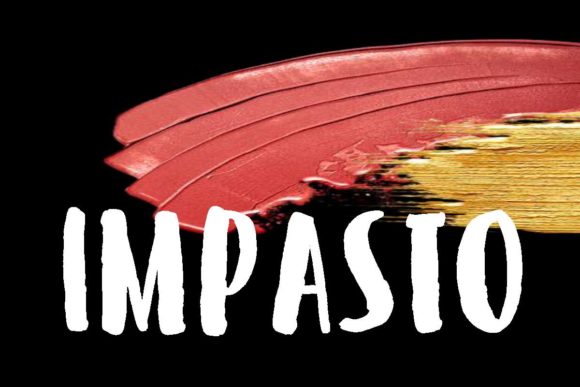
Introducing Impasto Font: The Bold and Beautiful Script Font That Will Transform Your Designs
In the realm of visual communication, fonts hold immense power. They can elevate your words, amplify your message, and capture the attention of your audience. Among the vast array of fonts, Impasto Font stands out as a true masterpiece, a bold and simple script font that will add a touch of elegance, personality, and intrigue to your creative projects.
Crafted with meticulous attention to detail by the skilled artisans at K26Fonts, Impasto Font exudes a unique charm that is both timeless and contemporary. Its bold strokes, chunky letters, and captivating curves create a visual feast that will leave your audience mesmerized. Whether you're a seasoned designer or just starting your creative journey, Impasto Font is the perfect tool to add a touch of sophistication and individuality to your work.
One of the defining characteristics of Impasto Font is its versatility. It effortlessly blends with a wide range of design styles, from classic and vintage to modern and minimalist. Whether you're creating logos, branding materials, social media graphics, or website designs, Impasto Font will seamlessly adapt to your vision and elevate your creations.
Immerse yourself in the world of Impasto Font and discover a treasure trove of creative possibilities. Let your imagination run wild as you explore the endless applications of this remarkable font. It's the perfect choice for adding a touch of personality to your social media posts, creating eye-catching headlines that demand attention, or crafting stunning invitations and greeting cards that leave a lasting impression.